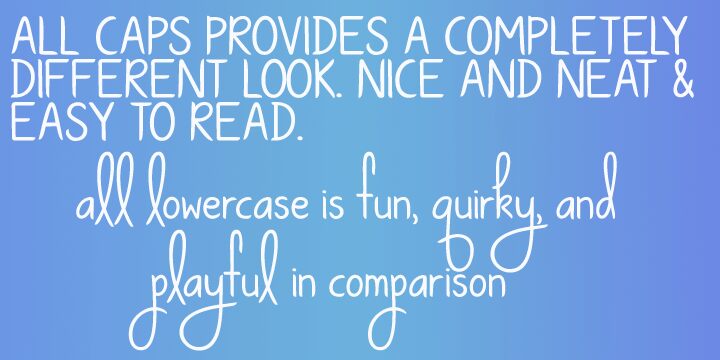
KG Ways to Say Goodbye by Kimberly Geswein is a free handwritten font with tall wandering letters, abrupt joins, and a light uneven stroke. The stretched verticals make the writing look quick and personal.
The casual notebook style suits diary covers and personal stationery, as well as indie music artwork with an informal voice. Farewell cards and reflective event graphics tap into the same intimate, slightly awkward honesty of a handwritten note.